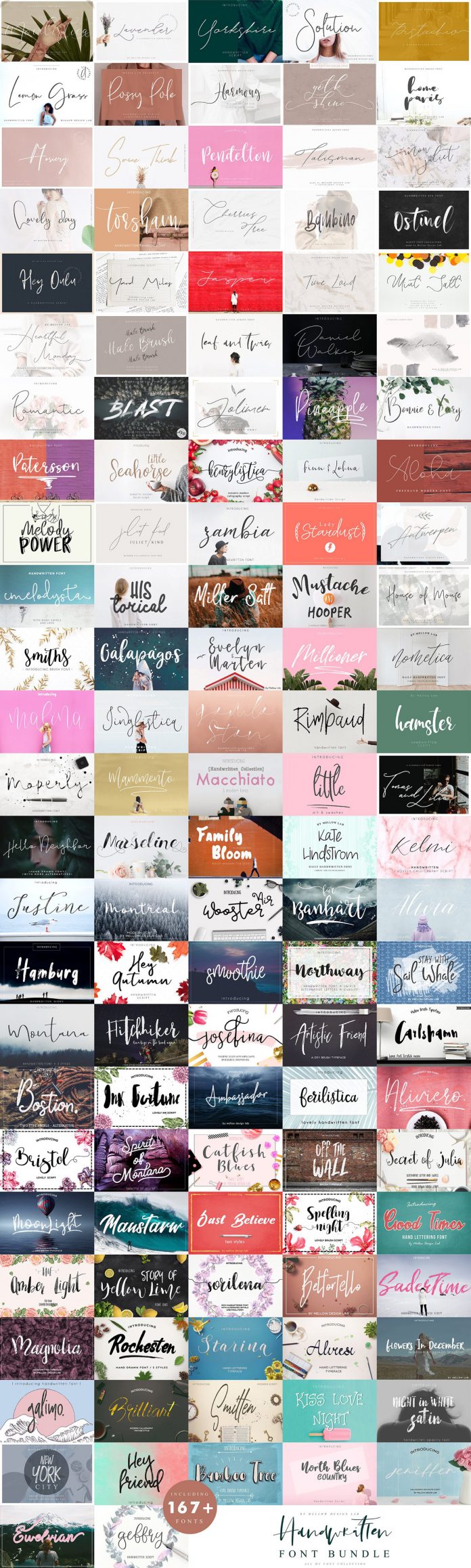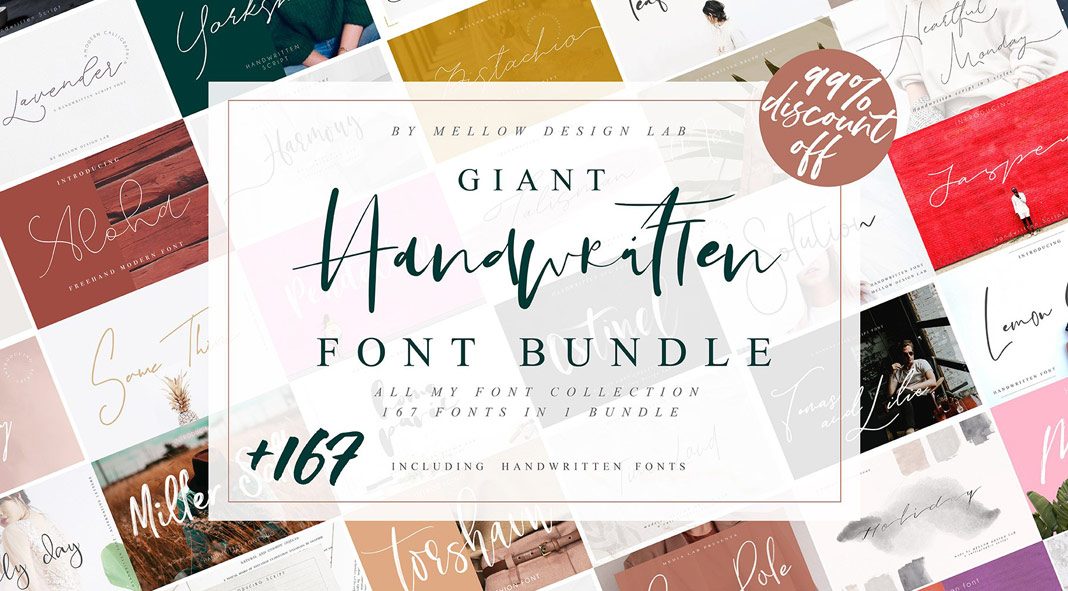
168 best handwriting fonts from Mellow Design Lab in one big bundle!
When I’m talking about some of the best handwriting fonts, I’m not just referring to one single typographic style. This collection includes such a great variety of executions. Some of the typefaces look bold and clean while others are more swirly and delicate. These fonts can be a great choice for wedding invitations as well as business cards, posters, logotypes, quotes, banners, postcards, blogs, etc. In addition, the bundle includes a guide on how to use alternates and swatches. To learn more, just click on the following link.